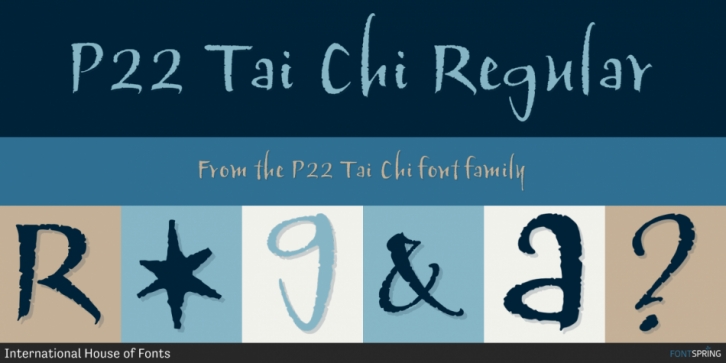
P22 Tai Chi is a hand drawn font published by International House of Fonts.
Experimental lettering Stephen Rapp created in 1999 became the spark that Stephen’s imagination transformed into the Tai Chi design. Tai Chi is a display face but it could also be used as a textured calligraphic script. Its delightful sense of movement distinguishes it from other scripts. Individual characters stand poised in a vertical Zen-like balance while at the same time displaying an inner rhythm that makes them appear to dance along the line. Rich in texture and variation, Tai Chi works very well at medium and large point sizes. The font contains several alternate letters that help maintain a hand-lettered look. Tai Chi includes both upper and lowercase letters but works well in all uppercase settings.